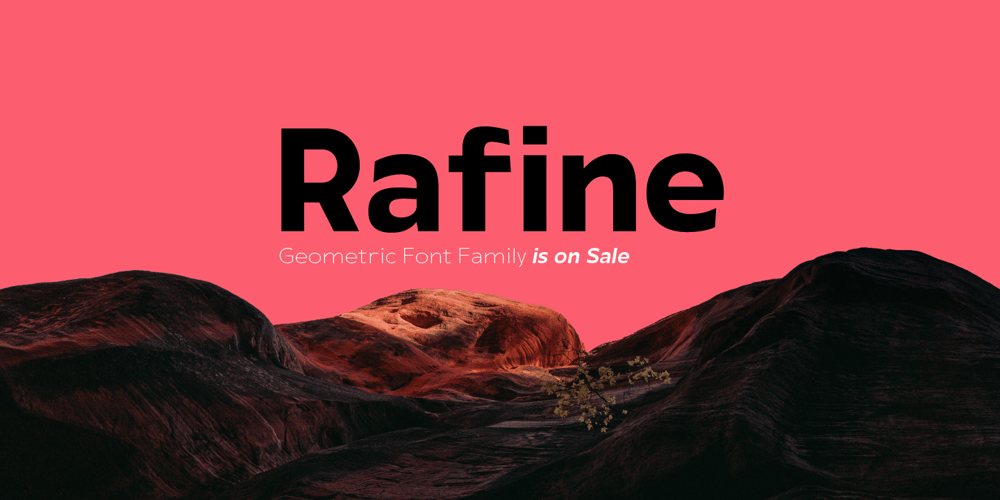
Rafine
Rafine font
Rafine Font Family was designed by Emre Güven and published by Fontmachine. Rafine contains 20 styles and family package options. Original, thought-out minimized simplicity. It is designed for those who want a unique font.